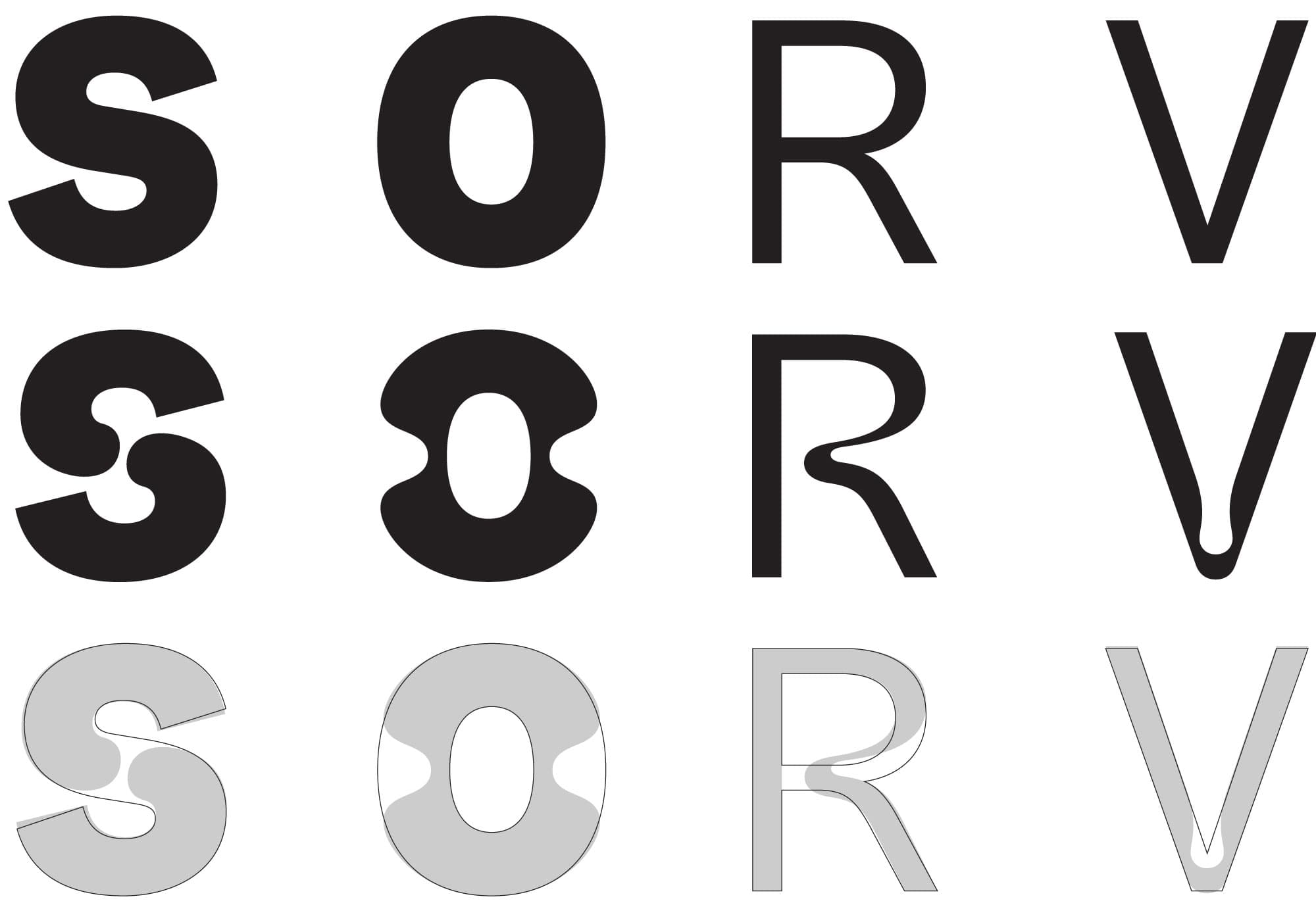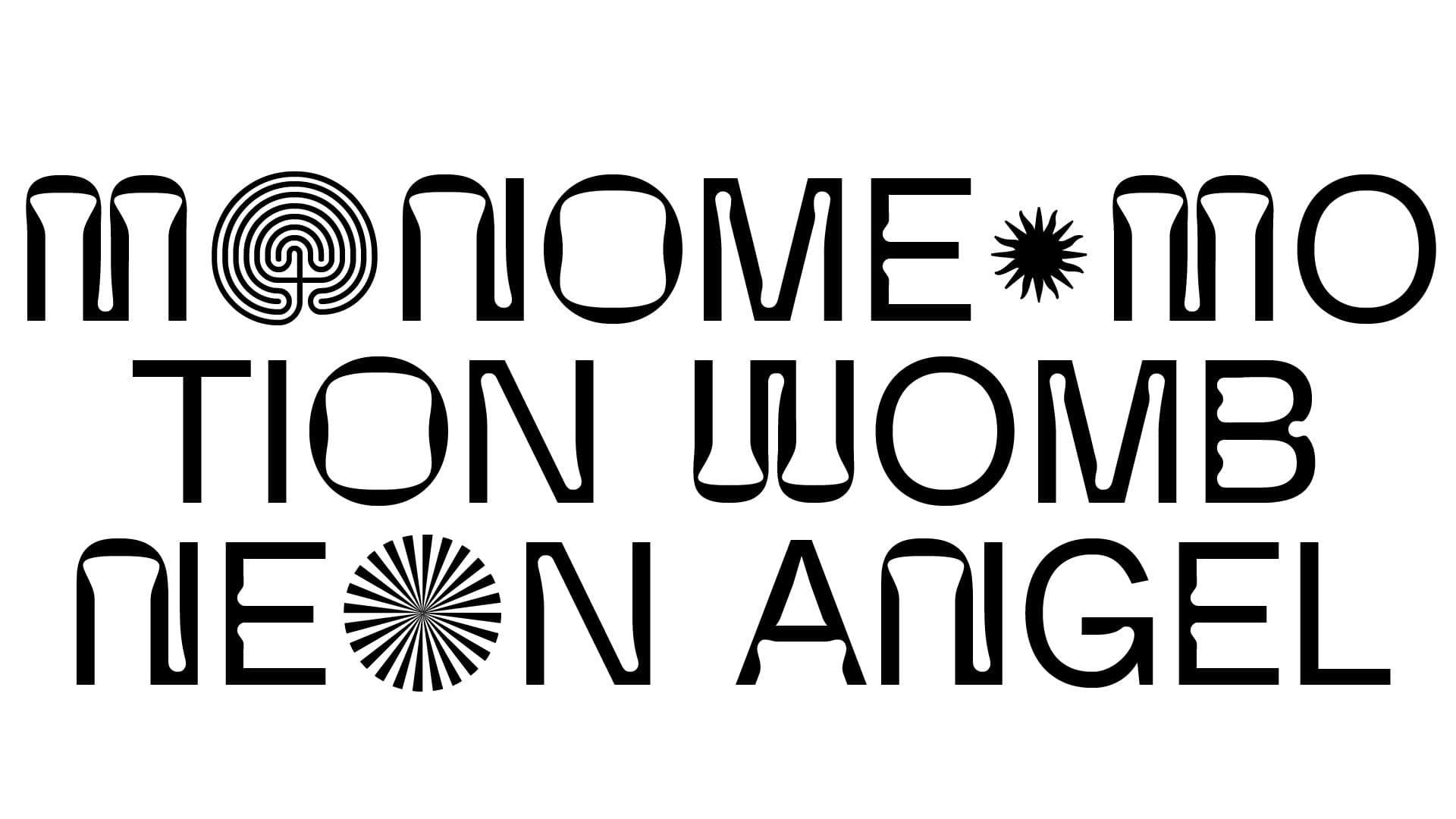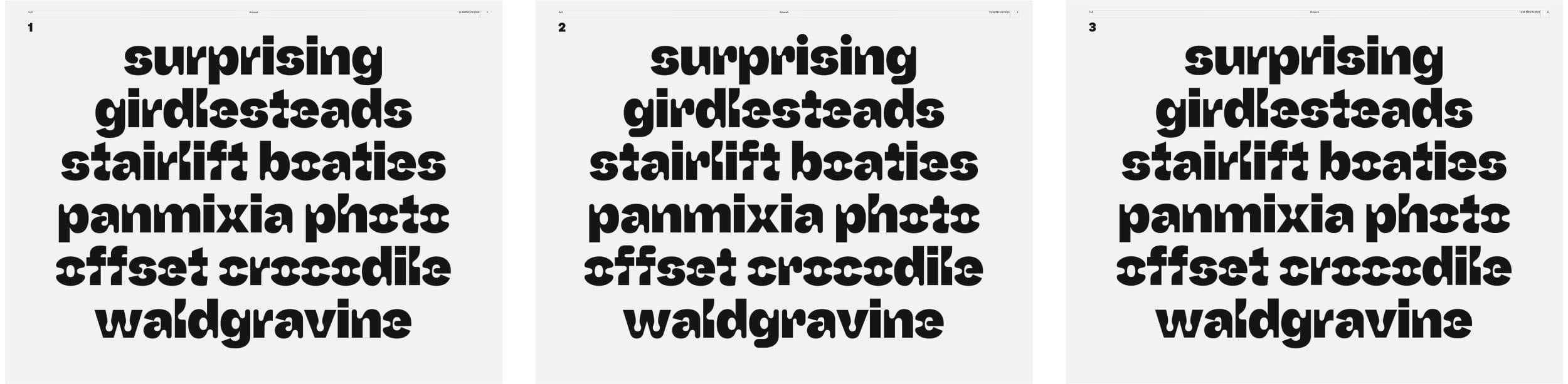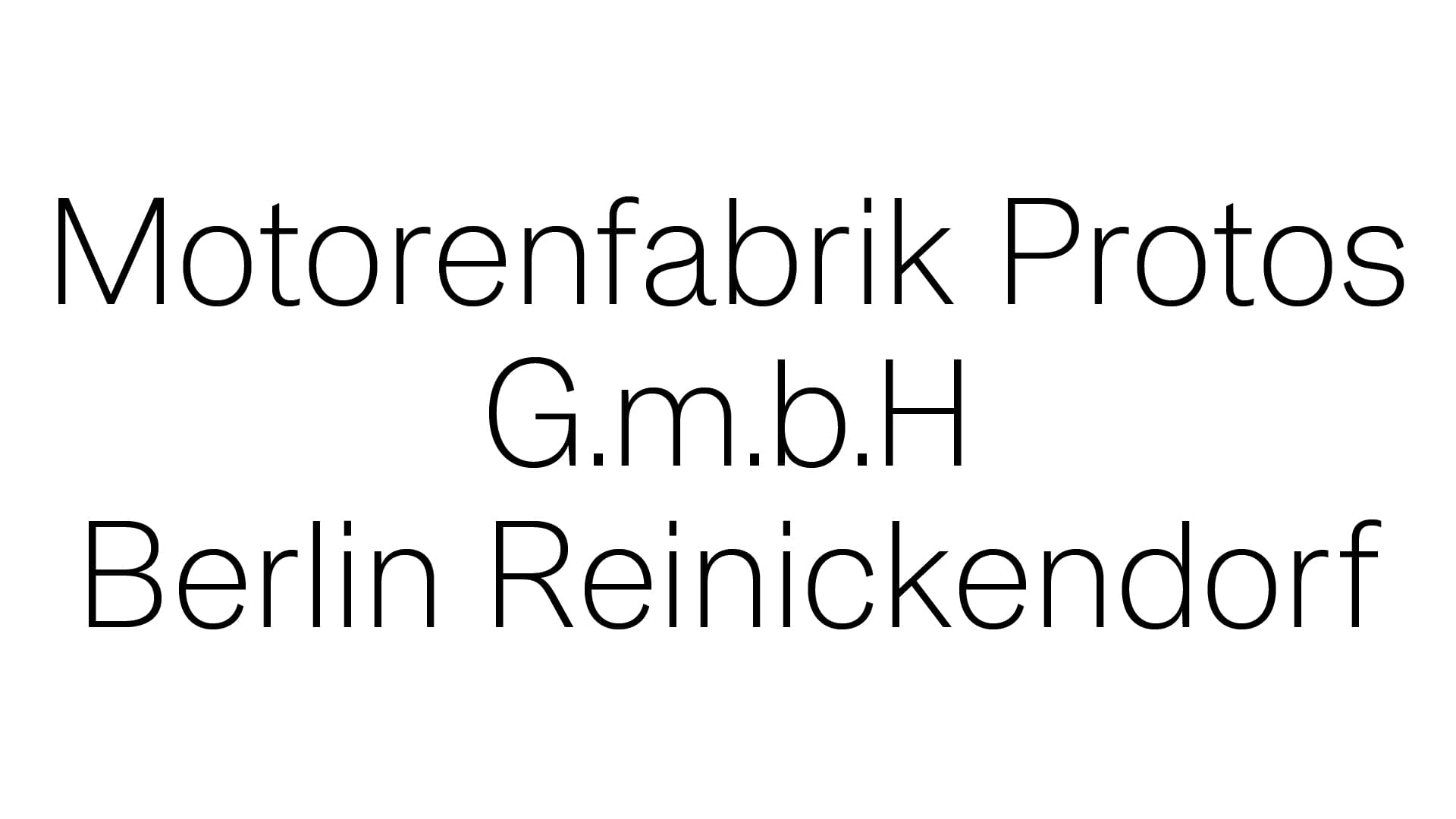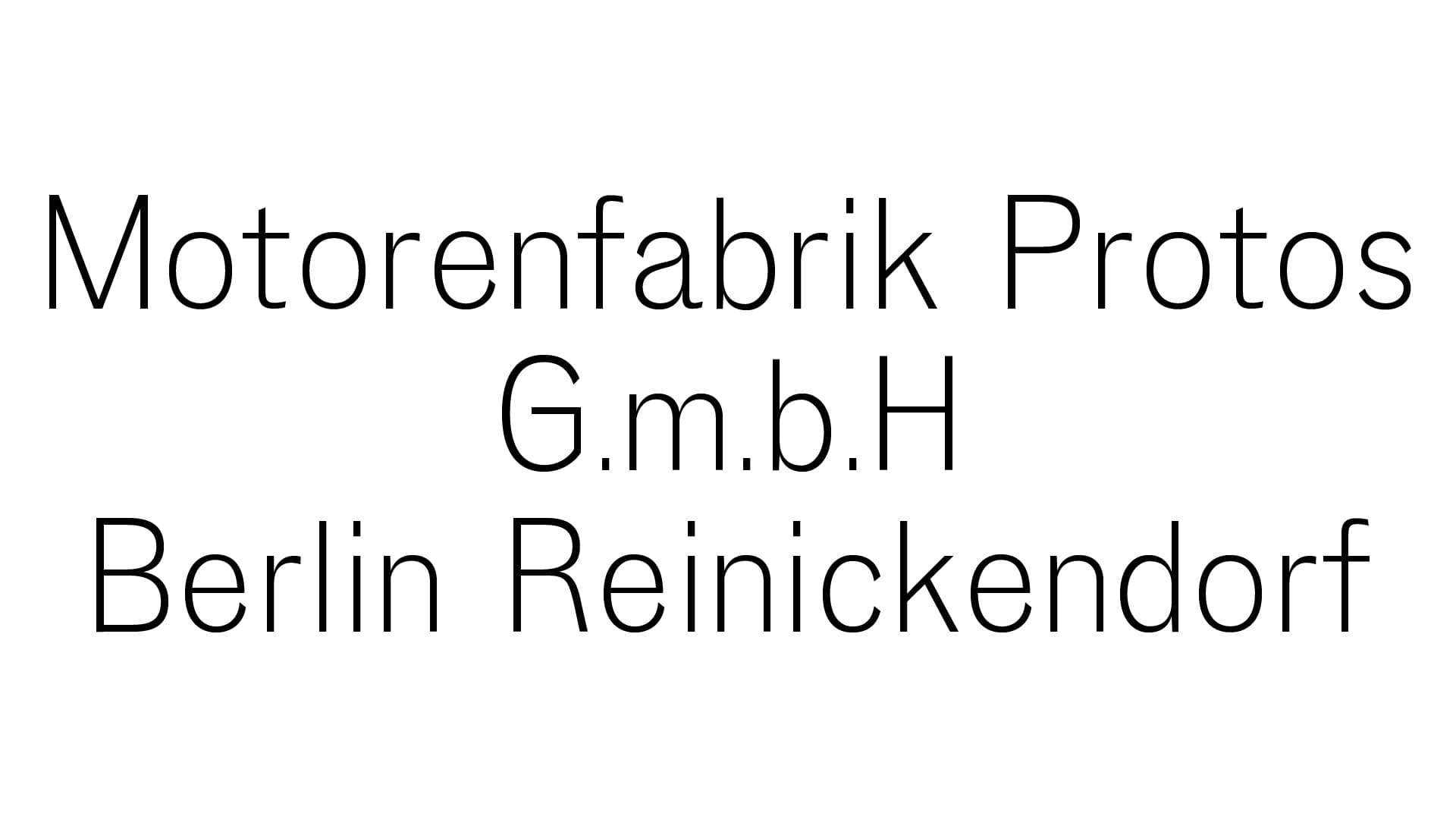
Meet Hauss & Raum a sans-serif work-horse and experimental display duet by Justin Sloane & Huw Williams.
The two typefaces define distinctive polarities from the purely utilitarian to the bombastically deontological–a sturdy design tool and an exercise in psychedelic retrofuturism. While Hauss is Sloane’s meticulous creation, crafted over years of trial and refinement for his own graphic design practice, Raum represents a sort of destruction–pushing the contemporaneous “display inktrap” motif into uncharted territory.
Raum
The process began with the design of Raum - originally titled Therapy. The design was developed as a custom font for an unrealized branding project.
The original design had no lowercase and two sets of uppercase characters, one vanilla one leaning more psychedellic. The skeleton was based on the proportions of Arial Regular, intened to be a blur between insanity and bland neutrality. Punctuation was replaced with symbols that were all part of the branding, all of the logos and brand assets were embedded in the font. The intention was to make a typeface that was an all-in-one visual system on its own. No client requests for the logo, or needing the logo at different sizes, just scale and print.
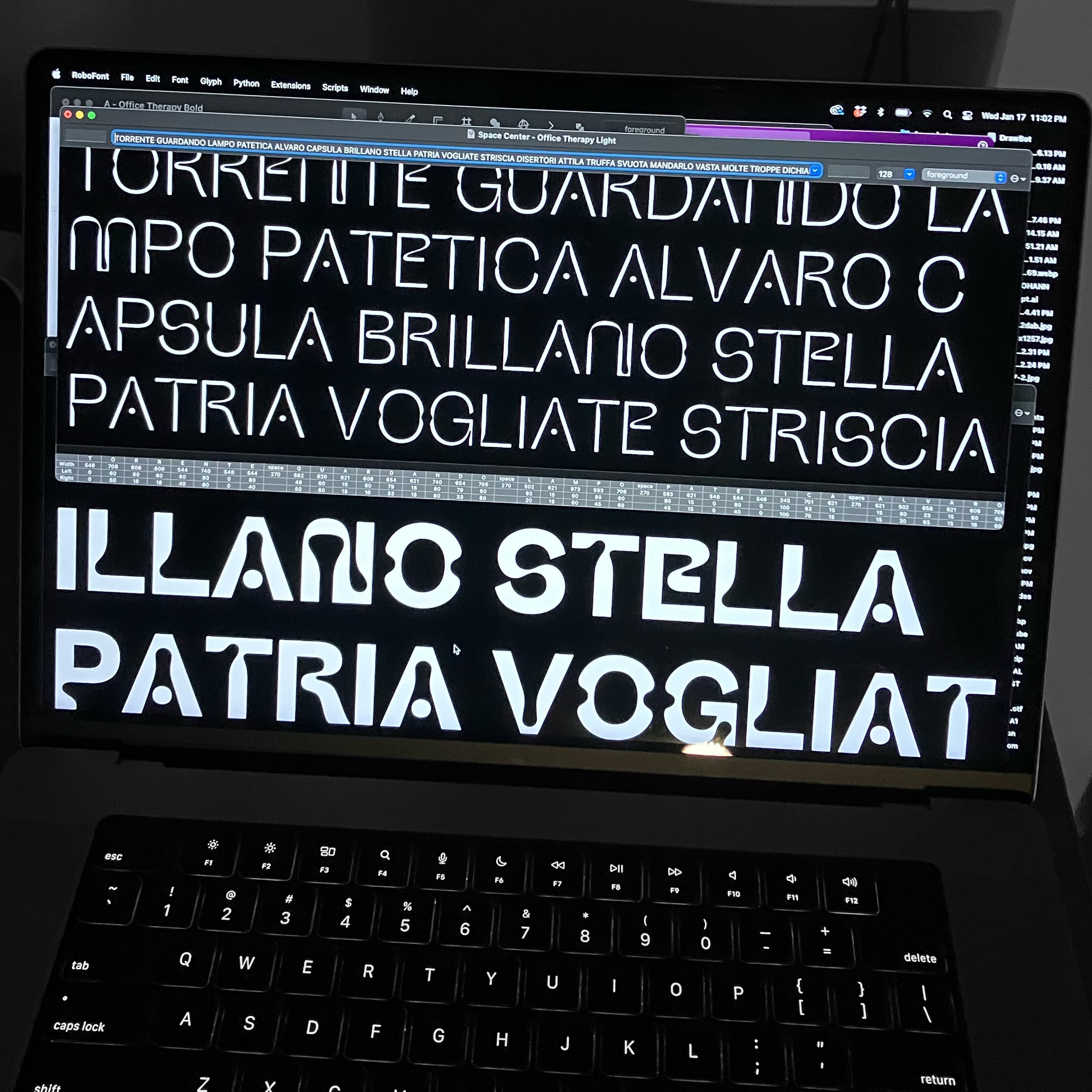
The initial concept led to a small wave of inquiries and requests from people looking to use the typeface. During and early discussion of the project Lucas suggested that Justin draw a sans as a final model and companion to the display font. Thus beginning the journey to Hauss and the conception of the Jekyll and Hyde pair that resulted from the several years long exploration.
The logic of Raum is a tension between a more traditional ink trap design and more psychedelic/nouveau influences; pieces of the Arnold Böcklin display font, Westminster by Leo Maggs, and Amelia by Stan Davis all found their way into the initial concept.
Raum was initially conceived as an all-caps display typeface, so coming up with a lowercase that carried over the utility and structure of Hauss while taking on its own identity was the primary challenge. We went through multiple iterations collaborating with Huw Williams to arrive at a final concept that eventually became the different stylistic sets within the font. Stylistic Set 01 takes on geometry closer to Hauss, Stylistic Set 02 and 03 takes on the curvier 'Bocklin forms' leaning into full on psychedellia.
Hauss
Hauss by Justin Sloane and Huw Williams is an equal parts an inquiry into grotesk proportions and a result of asking honest questions about what is the most suitable tool for a design practice. Reverse engineered to be the backbone of its psychedelic counterpart Raum the goal was subtlety and neutrality.
Since the original sketch used Arial as a skeleton the logical destination seemed to be the source material for Arial: early nineteenth century sans serifs. On a trip to The Letterform Archive in 2022 Justin captured some images of an early monotype grotesque that sparked the original idea for the thin weight.
"Working as a designer and art director I am extremely particular when choosing the right typeface to use in presentations, a neutral voice to present creative work that projects a knowingness and since of authority without subtracting from the subject matter or projecting too much personality onto the work being presented. The monotype grotesque I saw stood out to me as being capable of adding to the overall presentation as well as the work being presented."
Bold and Black proportions reference Akzidenz Grotesk and Genzch and Heyse Blockschrift. The goals for the heavier weights are less utilitarian than the Thin-Regular range, I was looking for something with display qualities and a geometric sense of uniformity.
The italics are notable for their steep angle (12 degrees) as well as a ‘rotated’ logic rather than a pure oblique slant. The goal was to retain as much of the roundness and character as possible from the roman design.
Blending the two typefaces
Retaining the skeleton of Hauss was critical to the texture of Raum. The clash between the organic and mechanical forms as well as the ability to mix the two fonts in paragraph settings gives greater functionality to the family.
Uniform stem widths, letter proportions and geometry gives the two fonts an interchangeable quality, adding endless variety to each other when used as a visual system. Raum can be used to highlight text in paragraphs instead of a weight change or italic to stop the eye in a body of text.